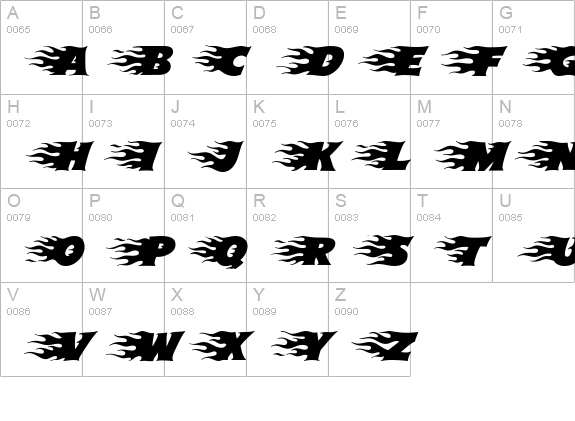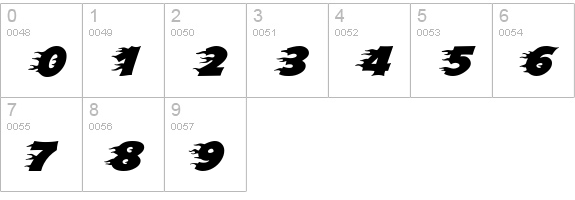
Blazed Font Details
Blazed font is a stunning display typeface that exudes a sense of boldness and modernity. Its sleek lines and sharp edges make it perfect for creating eye-catching designs that demand attention. Blazed font is versatile and can be used for a variety of projects, from branding to advertising to social media graphics. What makes Blazed font even more appealing is that it is available for free download at FontsMarket.com. This means that you can easily add this striking typeface to your collection without any cost. Take advantage of this opportunity to enhance your designs with the unique style of Blazed font and make a lasting impression on your audience.